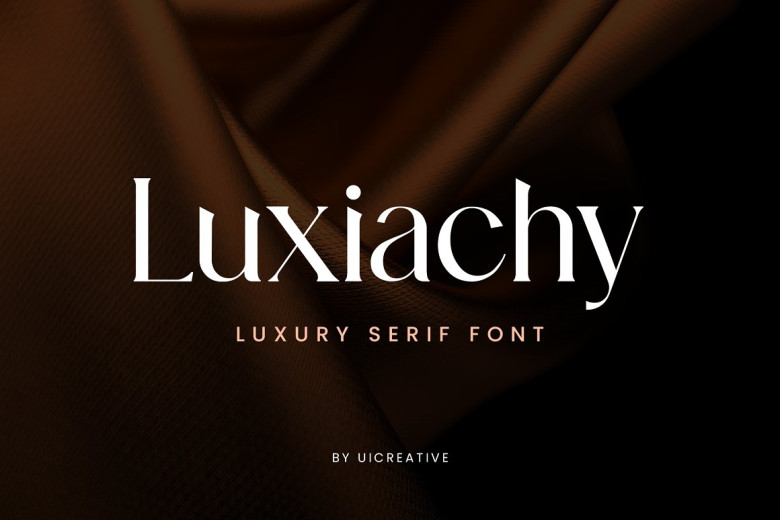
Luxiachy Font
Luxiachy is a luxury and talented unique example of the belief ‘beauty through thesaurus, understanding through translation, but also used in an entirely new creation’. This font is perfect for display, title, magazine, editorial, label, logotype, branding, movie, poster, and short quotes.
Luxiachy Serif Font